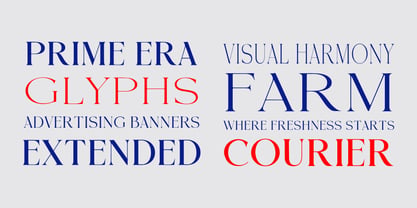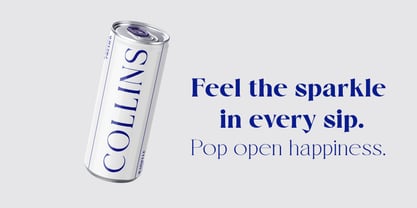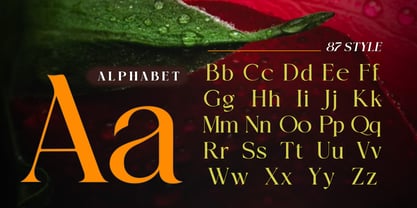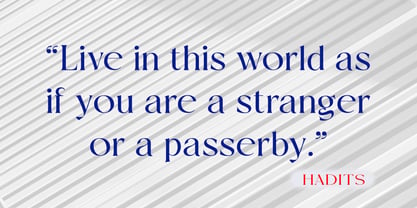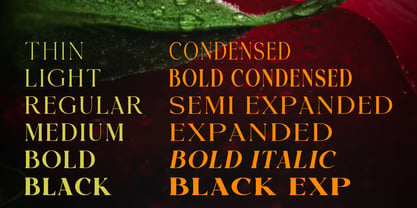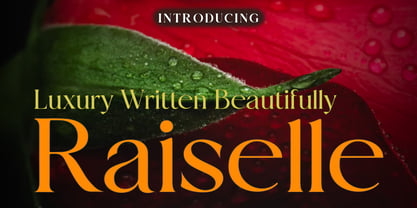
Raiselle
by Kaidosan
The Raiselle Font Family was designed by Muhammad Ansari and published by Kaidosan. Raiselle contains 86 styles and family package options. More about this family
Raiselle is a modern serif superfamily crafted to express elegance, luxury, and timeless sophistication. Designed with refined contrasts and graceful details, Raiselle delivers a premium editorial feel while maintaining excellent versatility across branding, fashion, packaging, and display typography. Featuring 87 styles generated through Weight, Width, and Italic axes, Raiselle gives designers extensive creative freedom—from delicate and condensed compositions to bold, expressive statements—all within one cohesive type system.